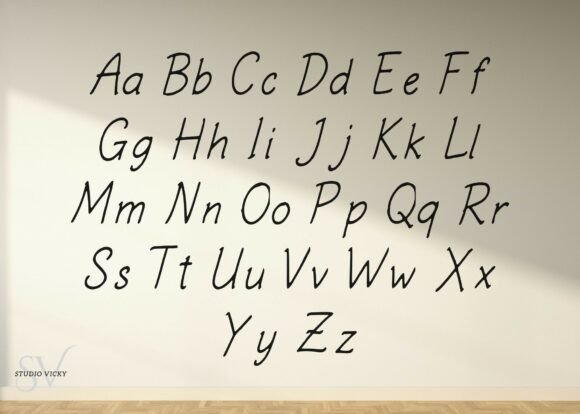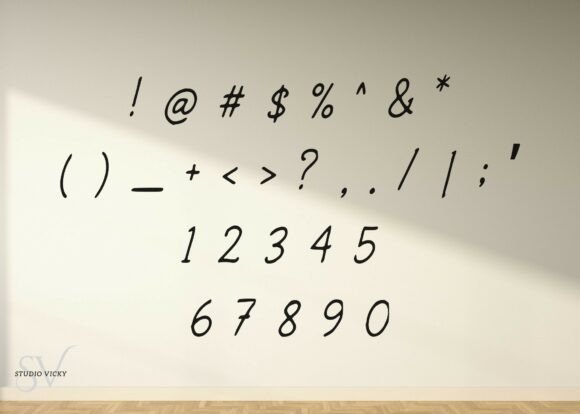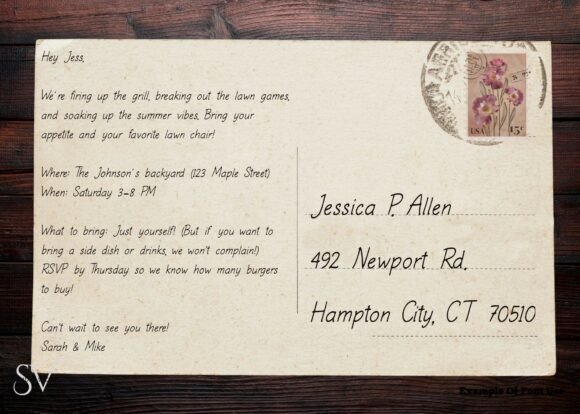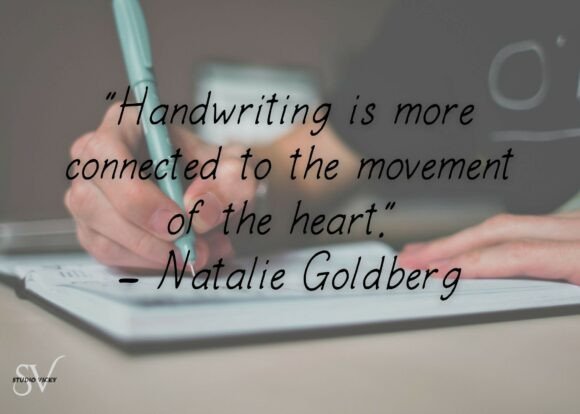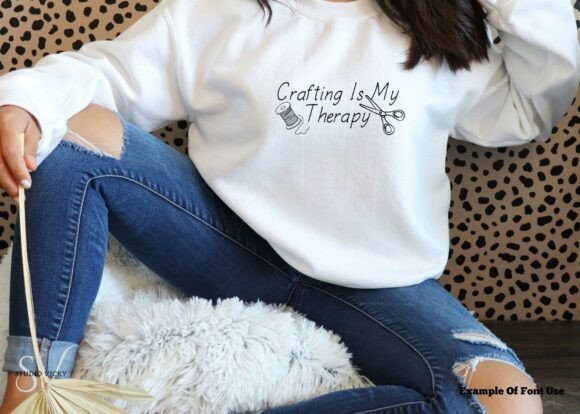
The Charm of Handwritten Invitation Script Font
Have you ever been in the middle of a design project, and suddenly, you’re stuck on finding the perfect font? I recall a particularly frustrating moment when I was working on a wedding invitation design. My client wanted something elegant yet approachable, but I just couldn’t seem to find a font that fit the bill. That’s when I discovered the Handwritten Invitation Script Font, and it completely transformed my design. In this article, I’ll share my experience with this beautiful font, its features, and how to make the most of it in your designs.
A Personal Review: What I Love and What to Consider
I’ve had the pleasure of working with the Handwritten Invitation Script Font on several projects, and here’s what I think:
- ✨ Smooth, flowing script: The font’s natural strokes mimic real handwriting, giving it a personal and polished touch.
- ✅ Elegant yet approachable style: It’s perfect for designs that need sophistication without losing warmth.
While I adore this font, there are a few minor quirks to consider:
- 🤔 Limited use of uppercase letters: The font’s beauty shines in lowercase letters, so I find myself using them more often.
- ⚠️ Occasional kerning issues: As with any script font, you might need to adjust kerning for optimal results, especially in larger text sizes.
The Story Behind Handwritten Invitation Script Font
The Handwritten Invitation Script Font was inspired by the art of traditional calligraphy and the desire to create a digital font that feels personal and approachable. Its creator aimed to craft a font that would bring elegance and warmth to designs, making it perfect for wedding invitations, event stationery, and more.
| Font Name | Handwritten Invitation Script Font |
| Author | Victoria Gates |
| What makes Handwritten Invitation Script Font unique? | Its smooth, flowing script and elegant yet approachable style set it apart from other script fonts. |
| Does the font include OpenType features? | Yes, the Handwritten Invitation Script Font supports OpenType features, including ligatures and stylistic alternates. |
With its charming personality and versatile design, the Handwritten Invitation Script Font is sure to elevate your projects and make every word feel special.